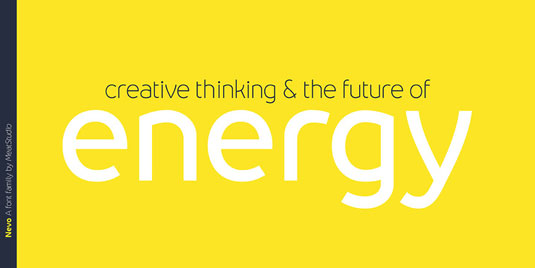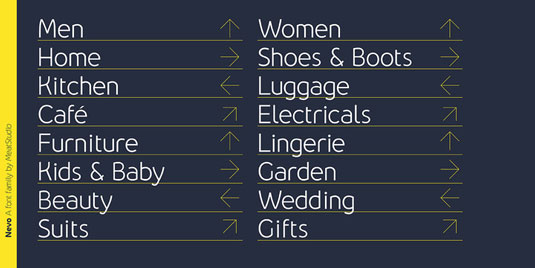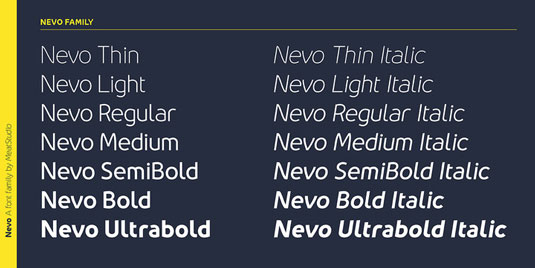
Font of the day: Nevo
Nevo by Stew Deane
Today's typeface of choice is Nevo by designer Bristish type designer Stew Deane. He comments: "Nevo is a 14-style contemporary sans serif, designed to be versatile – adapting to a variety of brands and sectors through subtle nuances in the letterforms, such as the bends in some vertical stems, and the modern simplicity of each glyph."